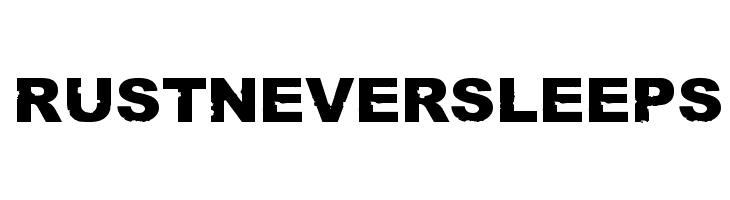
A bold, distressed font with a rugged, industrial appearance.
A bold, distressed font with a grunge texture and strong, impactful characters.
A bold, distressed font with a grunge aesthetic and rugged texture.
A bold, distressed font with a rugged, textured appearance.
A bold, distressed font with a grunge texture and rugged appearance.
A bold, distressed font with a vintage, rebellious style.